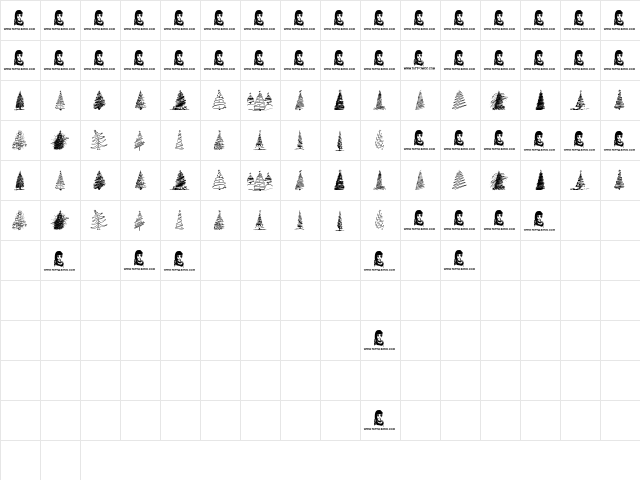
Merry Christmas Trees Regular
| Foundry | Jonathan S. Harris |
| Designer | Jonathan S. Harris |
Design Context for Merry Christmas Trees Typeface
Merry Christmas Trees is a composed and adaptable typeface that performs quietly and consistently across a wide range of design contexts.